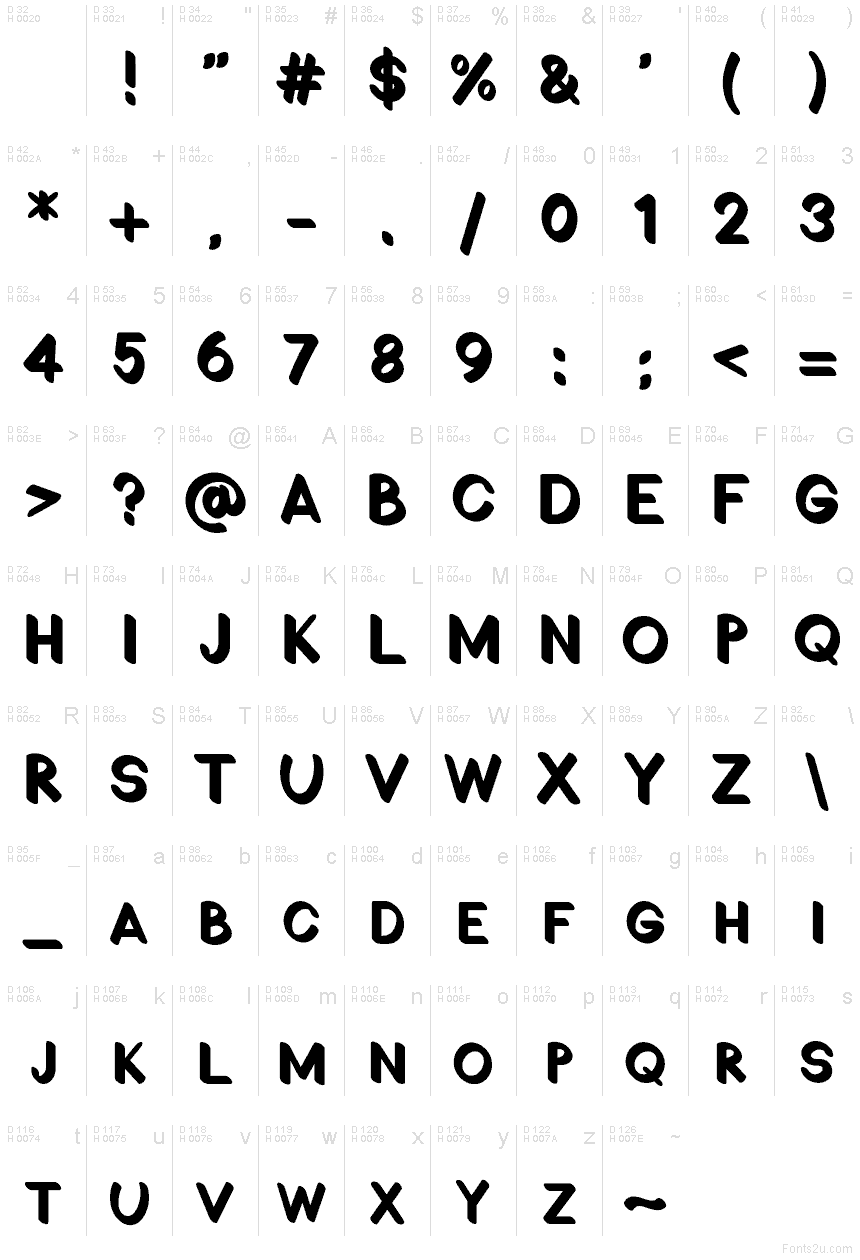
Mio Sporty
Mio Sporty font by Aji Waluyo is a free marker display font. Built for movement, it packs chunky, rounded strokes with soft, pillowy curves that land like a confident brush on glossy paper. The letters sit snugly with even rhythm and generous counters, giving that upbeat, high-energy feel without sacrificing readability—great when you need loud, friendly impact that still scans fast.
Using Mio Sporty, headlines jump on sports event posters, youth team logos, fitness class flyers, kids’ apparel, game titles, and playful packaging. This free font shines at large sizes where its inky, rounded edges can breathe; pair it with a clean geometric sans in light weights for details to keep the energy focused and fresh.